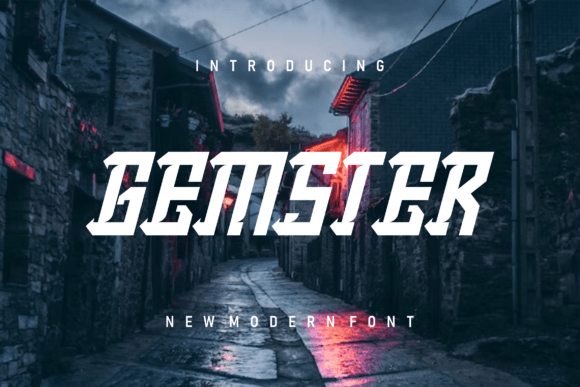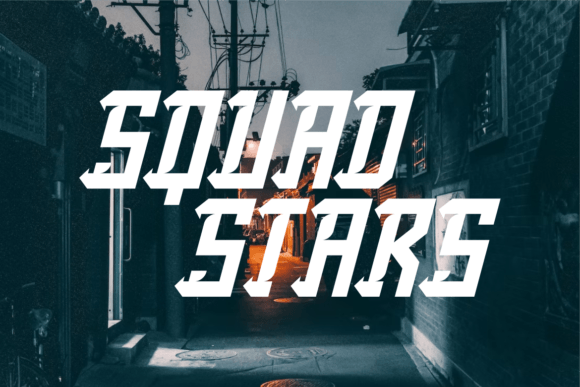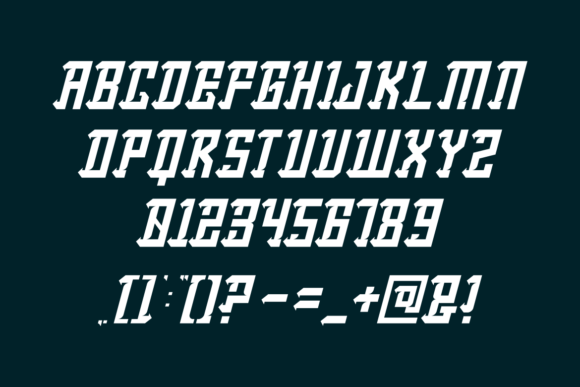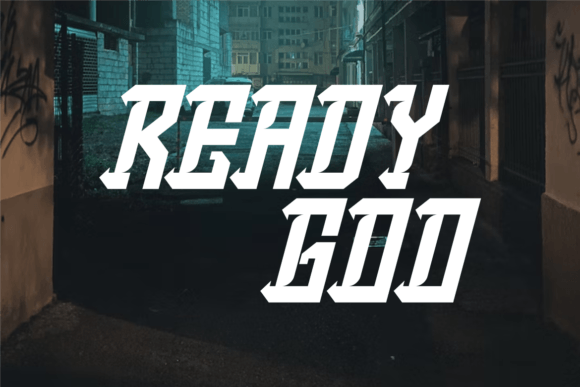
Gemster
Gemster: A Solemn and Modern Slab Serif Font
Gemster is a solemn slab serif font that combines interesting and modern design elements. This versatile typeface is perfect for various projects, from signatures and stationery to branding and packaging design.
Key Features of Gemster
• Solemn Design: Offers dignified and refined letterforms.
• Modern Style: Brings contemporary appeal to designs.
• Interesting Character: Features distinctive design elements.
• Versatile Application: Adapts well to numerous design contexts.
Best Uses for Gemster
Thanks to its versatile characteristics, Gemster works especially well for:
When using Gemster in your designs, keep these tips in mind:
• Try it for headlines or display text to showcase its solemn style.
• Use different sizes to highlight its modern features.
• Pair with simpler fonts for body text to create balance.
• Let its versatility enhance both traditional and contemporary projects.
To sum up, Gemster is an excellent choice for designers seeking a solemn and modern slab serif font. Its versatility makes it perfect for a wide range of projects. Whether you’re creating wedding materials, designing logos, or developing branding packages, Gemster offers the perfect blend of contemporary style and dignified sophistication.
Furthermore, Gemster’s distinctive design allows it to shine in contexts where both solemnity and modernity are key. For instance, from stationery to website headers, this font can elevate your projects with its refined style. Also, its solemn yet interesting appearance works particularly well in designs that aim to make a sophisticated impact.
In conclusion, Gemster truly captures the essence of modern solemnity in slab serif typography. Its versatility across different applications shows how well it can serve various creative needs. Therefore, for those wanting to add a touch of dignified sophistication to their work, Gemster can enhance any design with its unique style. Ultimately, it’s perfect for designers aiming to make a solemn, modern impact across a wide range of creative projects.